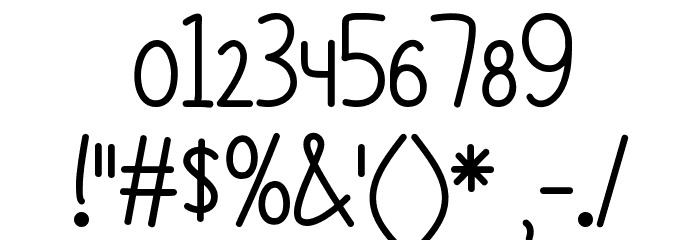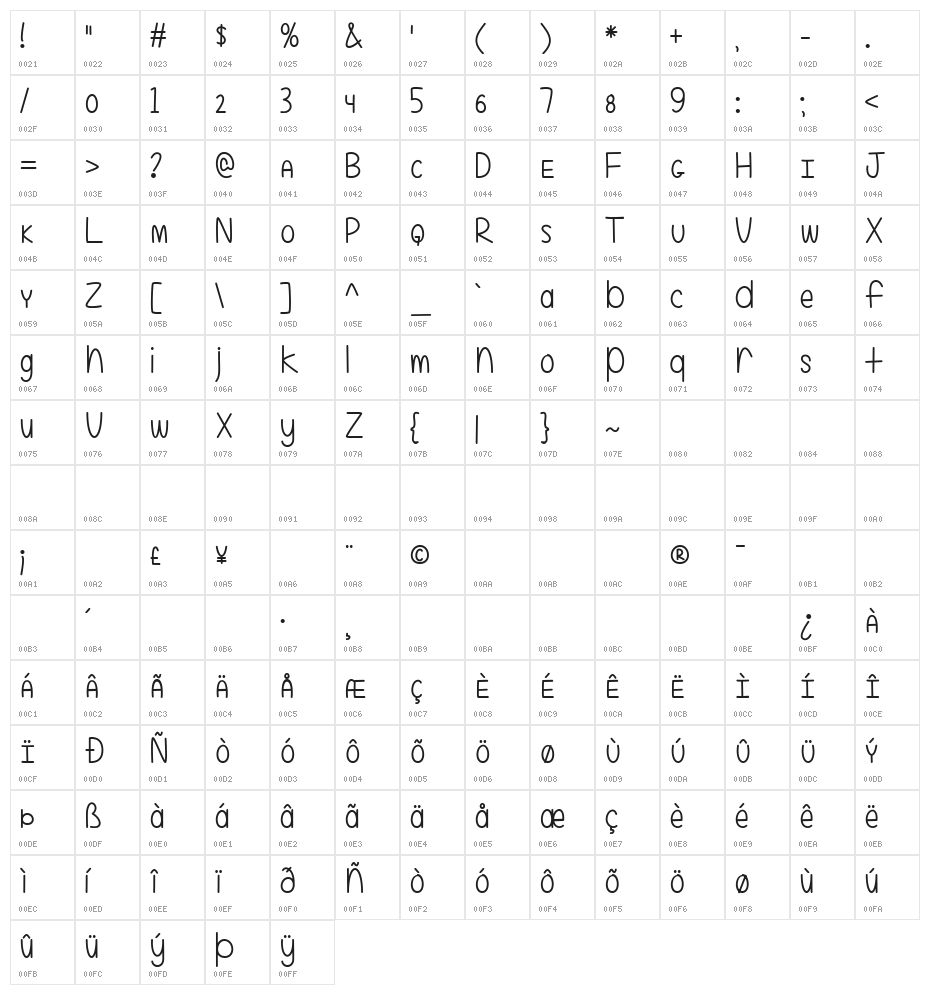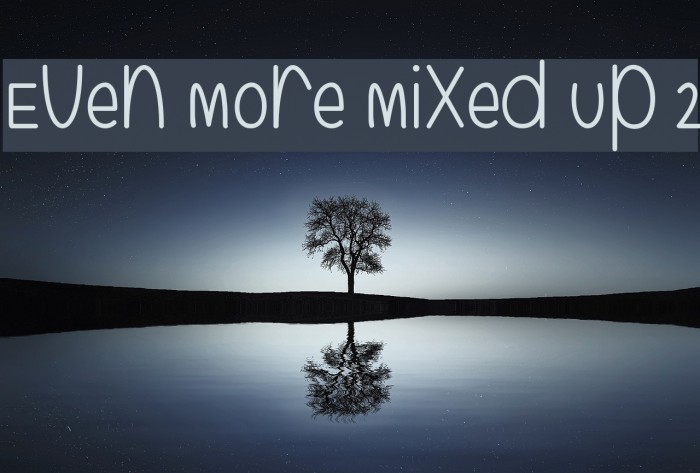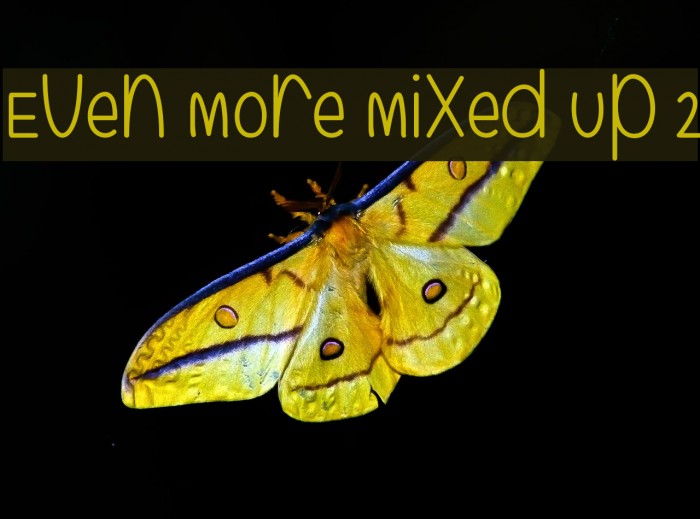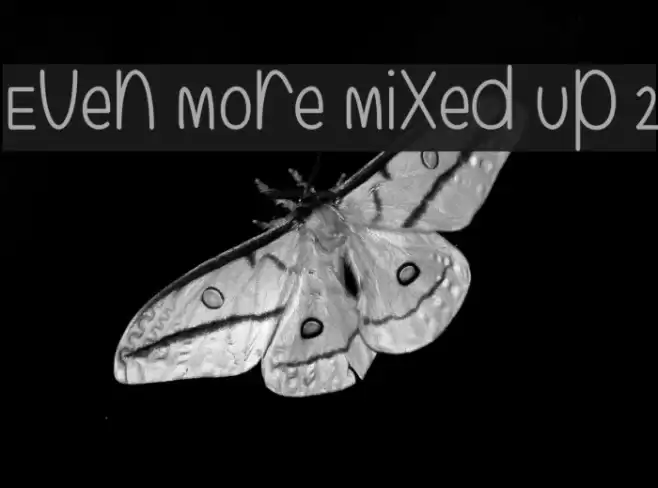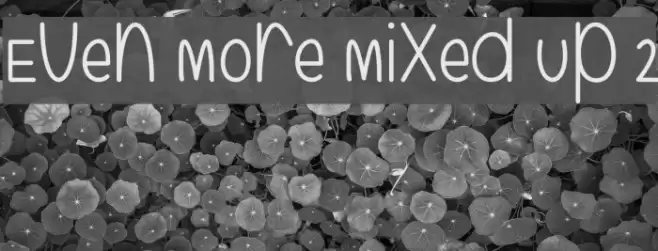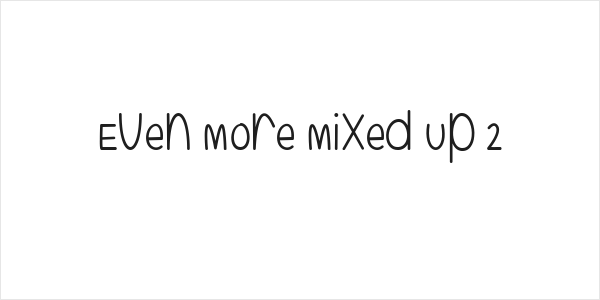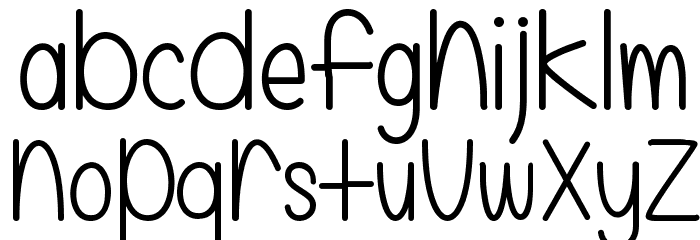
Even More Mixed Up 2 Font
Even More Mixed Up 2 Description
This playful and whimsical font features a mix of uppercase and lowercase letters with a hand-drawn aesthetic. The characters are rounded and slightly irregular, giving them a friendly and approachable feel. The strokes are consistent in width, contributing to a clean and modern look. The font includes a full set of numerals and a variety of special characters, making it versatile for different uses. Its informal style is perfect for projects that require a touch of creativity and fun, such as children's books, greeting cards, or casual branding.
Overall StylePlayful
Use CaseHeadlines, Informal text, Creative projects
Proposed ProjectsIdeal for children's books, greeting cards, and casual branding.